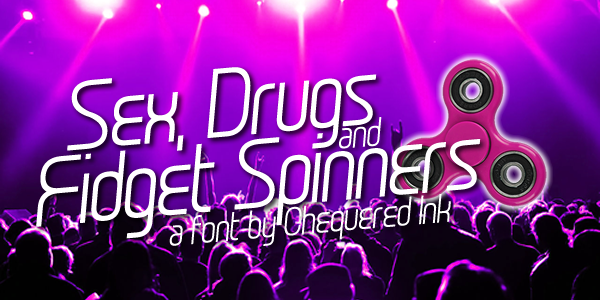
Sex, Drugs and Fidget Spinners
Named for: ”Sex, Drugs and Rock and Roll” + fidget spinners, a fad of the time
This font was worth it just for the incredible Twitter response to its name.